Different Font Generator
Rather than another bold or cursive variant, this page collects the styles that look structurally different from normal text: reversed order, flipped letters, or alternating between two alphabets mid-word.
Shape Shift alternates between Bubble and Squared letters character by character for a genuinely unusual look that no single alphabet substitution can produce on its own.
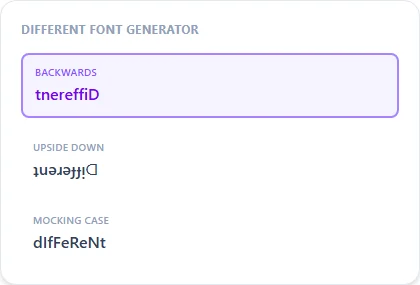
Structural tricks vs. alphabet swaps
Most style pages on this site work by swapping one alphabet for another, letter for letter — bold, cursive, gothic. This page is different on purpose: Backwards and Upside Down change the order or orientation of your text, and Shape Shift alternates between two alphabets by character position rather than applying one style uniformly. The result reads as structurally different, not just visually different.
Why Shape Shift can't be reproduced with a single alphabet
A normal style is one lookup table applied to every character. Shape Shift instead checks each character's position and alternates which lookup table it uses, so consecutive letters can come from Bubble and Squared in turn — a genuinely different effect that no single-alphabet substitution could achieve, even in principle.
What is Shape Shift?
It alternates between Bubble and Squared letter styles by character position, so the look changes letter to letter instead of applying one consistent style — a genuinely different effect from a single alphabet swap.
Is any of this harder to read than normal text?
Backwards and Shape Shift especially are meant to be eye-catching rather than easy to read at a glance — better for a short caption or comment than a long message.
Which style here is closest to a normal font, just different?
Upside Down is the most legible of the set once flipped back the right way; Shape Shift and Backwards are more of a puzzle effect by design.
Is Mocking Case included here too?
Yes, it's featured on this page as well as the dedicated weird text generator page, since it fits both the 'different' and 'weird' framing equally well.